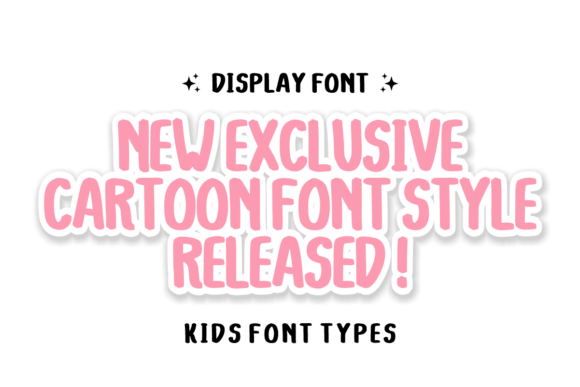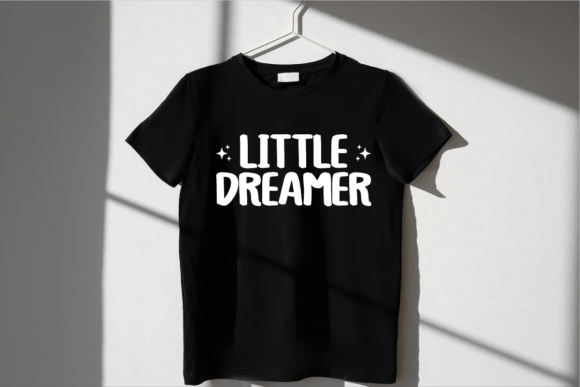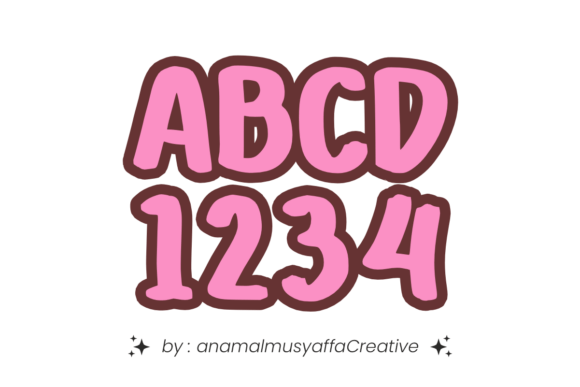
Inject a Spark of Joy with Fancy Styles Font
Are you looking for a font that can add a dash of excitement and youthful energy to your design projects? Look no further than the Fancy Styles Kids Font! This vibrant and engaging display typeface is perfect for designers and crafters who want to create fun, dynamic, and visually appealing designs that capture the attention of their audience.
A Font that Bursts with Youthful Energy
The Fancy Styles font is designed to bring a sense of joy and playfulness to your projects. Its bold, chunky letterforms feature rounded corners, giving it a soft yet energetic presence that’s reminiscent of bright stickers or colorful block toys. This font is perfect for designs that require a youthful and modern flair, making it an excellent choice for creative projects that need to stand out from the crowd.
One of the best things about the Fancy Styles font is its versatility. As one of many Kids Font Types, it’s perfect for a wide range of design applications, from children’s party invitations to colorful product labels, engaging app interfaces, school flyers, or playful social media announcements. Whether you’re designing for print or digital, this font is guaranteed to make your design pop with attractive, exciting visual appeal and irresistible charm.
Perfect for Creative Headlines and Branding
The Fancy Styles font is ideal for creative, high-impact headlines and branding. Its fun, slightly informal structure makes it perfect for designs that require a playful and energetic vibe. Whether you’re creating a logo, title, or heading, this font is sure to grab the attention of your audience and leave a lasting impression.
Key Features of Fancy Styles Font
- Bold and Chunky Letterforms: The Fancy Styles font features bold, chunky letterforms that offer a fantastic canvas for color and layered effects.
- Rounded Corners: The font’s rounded corners give it a soft yet energetic presence that’s perfect for youthful and modern designs.
- Versatile: The Fancy Styles font is perfect for a wide range of design applications, from print to digital.
- Fun and Playful: The font’s fun, slightly informal structure makes it perfect for designs that require a playful and energetic vibe.
Design Ideas with Fancy Styles Font
The Fancy Styles font is perfect for a wide range of design projects, including:
- Children’s Party Invitations: Create fun and playful invitations that set the tone for an unforgettable party.
- Colorful Product Labels: Add a pop of color and energy to your product labels with the Fancy Styles font.
- Engaging App Interfaces: Create engaging and interactive app interfaces that capture the attention of your users.
- School Flyers: Design eye-catching school flyers that showcase your school’s personality and style.
- Playful Social Media Announcements: Create playful and engaging social media announcements that grab the attention of your followers.
In conclusion, the Fancy Styles Kids Font is a fantastic addition to any designer’s toolkit. Its bold, chunky letterforms, rounded corners, and fun, slightly informal structure make it perfect for designs that require a youthful and modern flair. With its versatility and wide range of design applications, this font is guaranteed to inject a spark of joy and dynamic energy into your projects. So why wait? Download the Fancy Styles font today and start creating engaging, visually appealing designs that capture the attention of your audience!